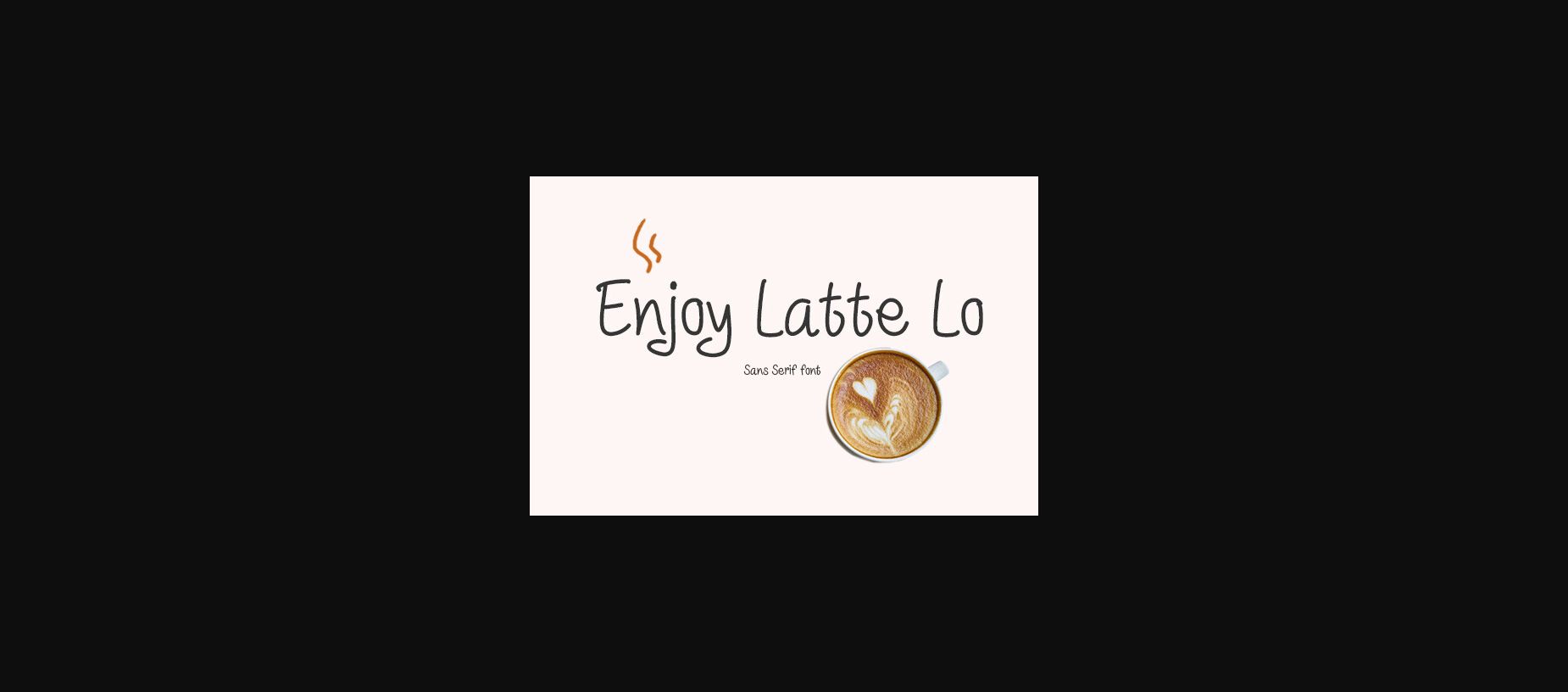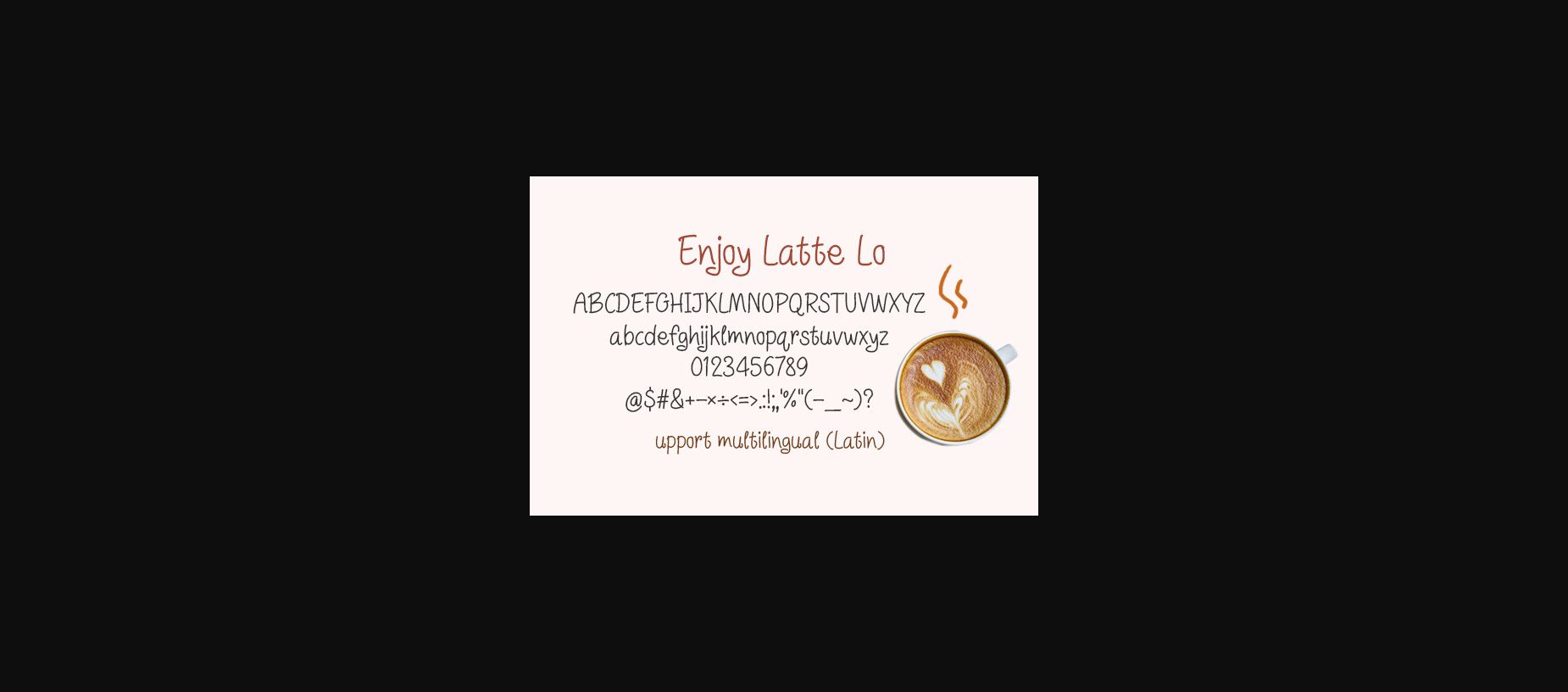
About Enjoy Latte Lo Font
Enjoy Latte Lo is a friendly sans serif font. It would be awesome to your fun projects or diary planner, on wedding invitations, thank you cards, quotes, greeting cards, logos, posters, blogs, bag, T Shirt, clothing and other designs. choice for each of the creations that require a relaxed touch.